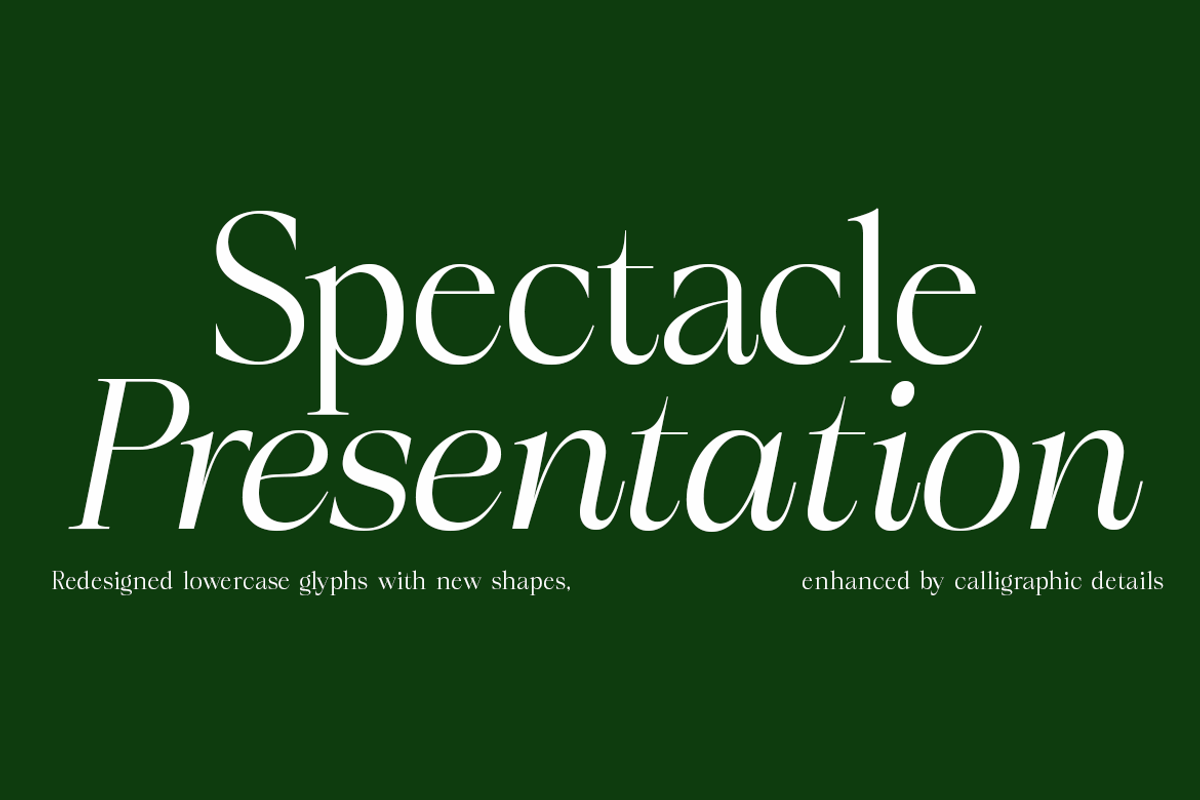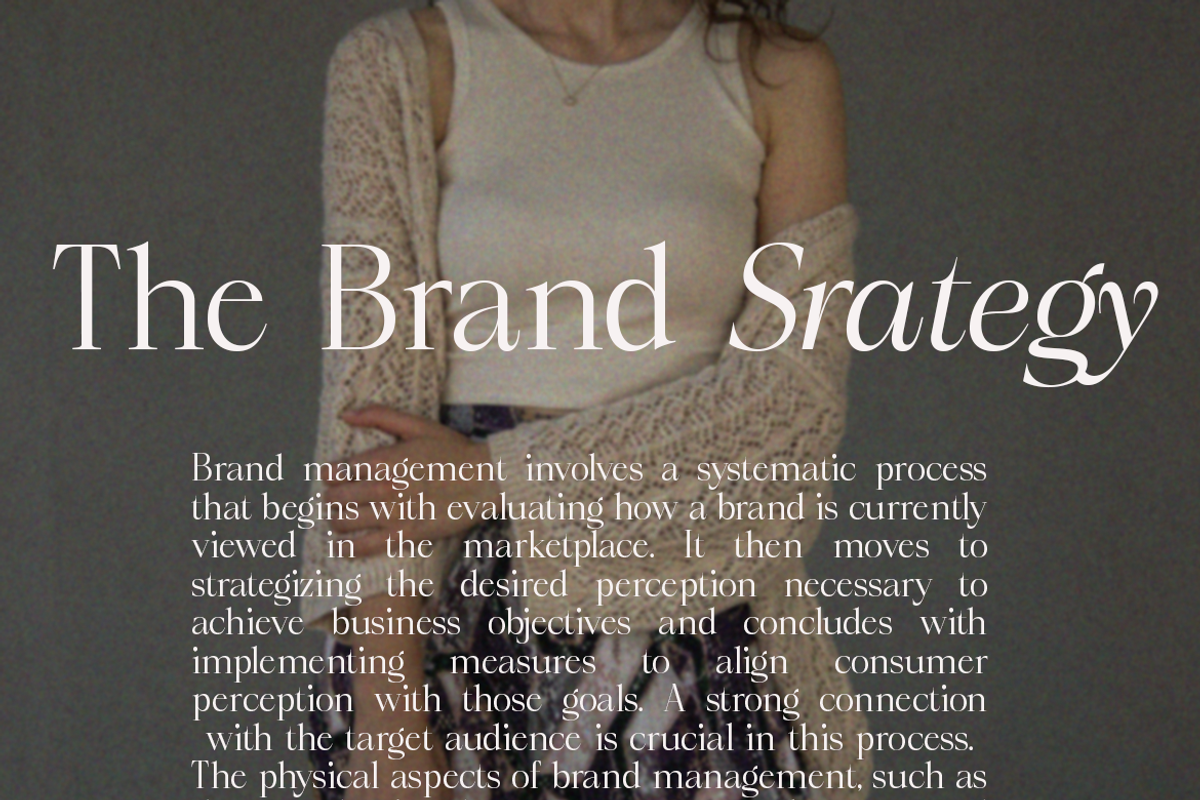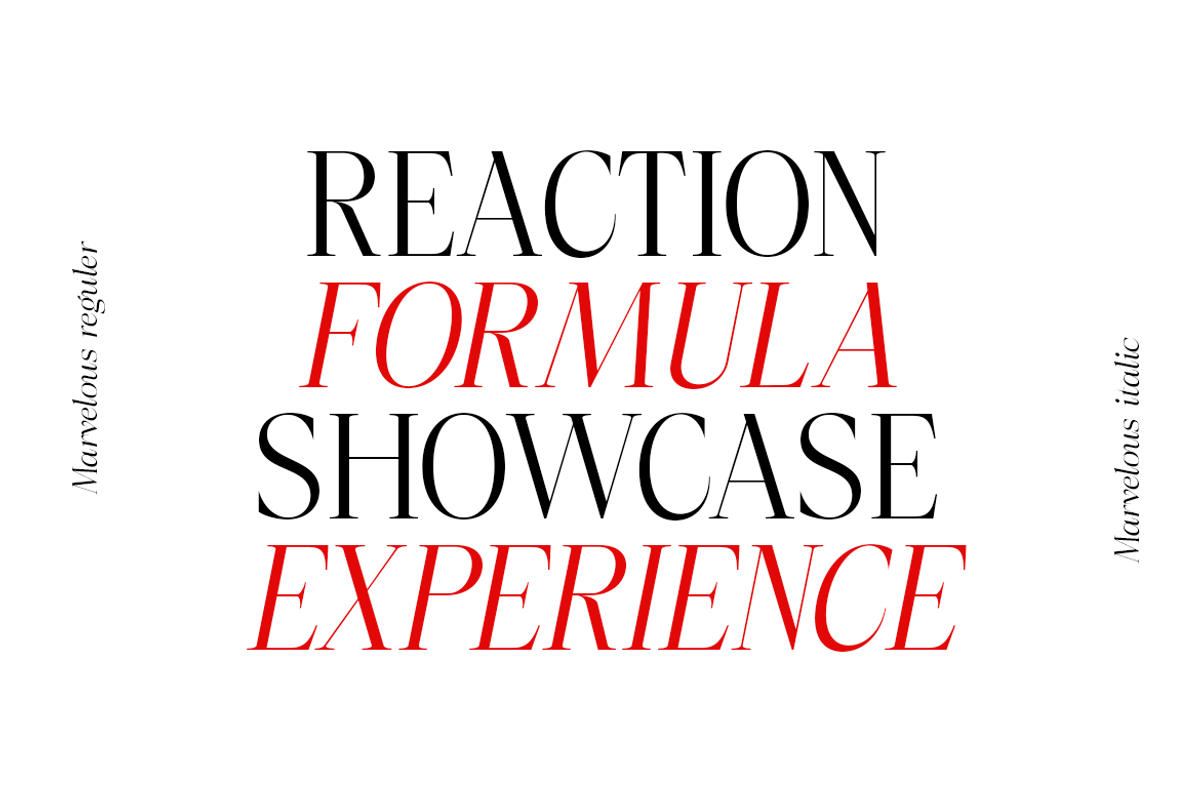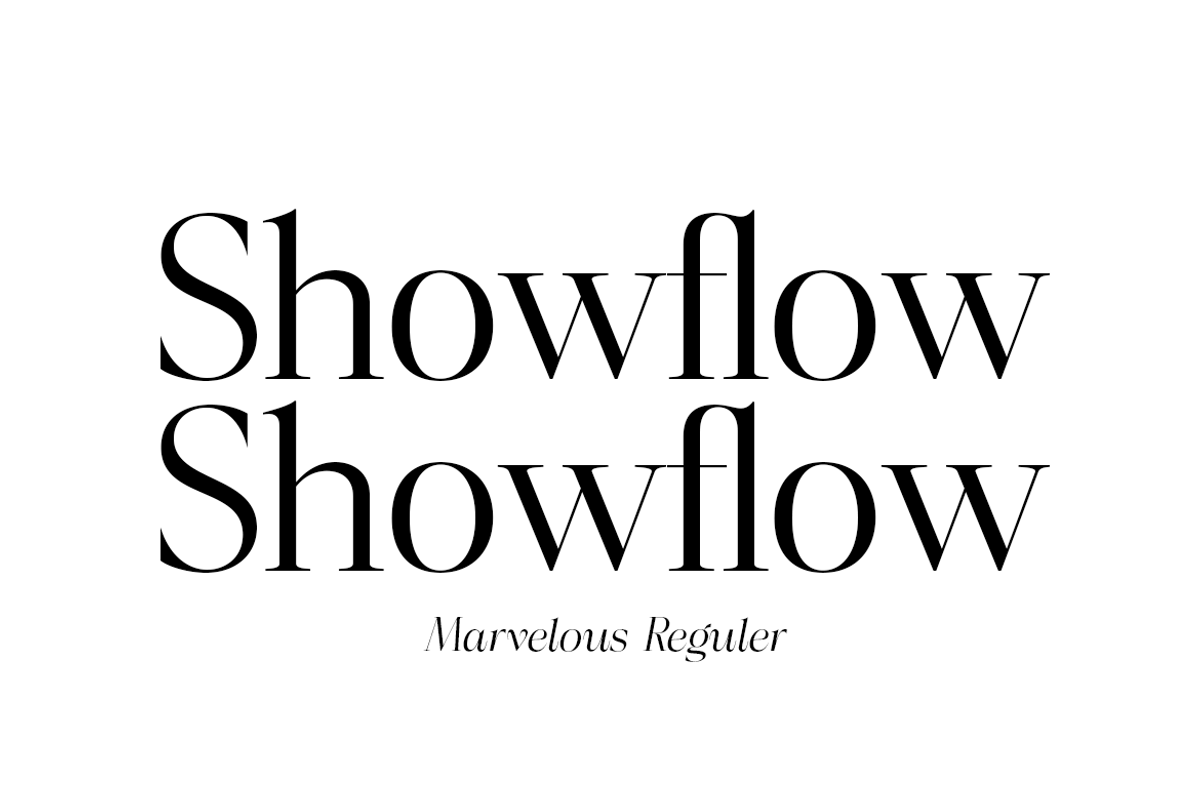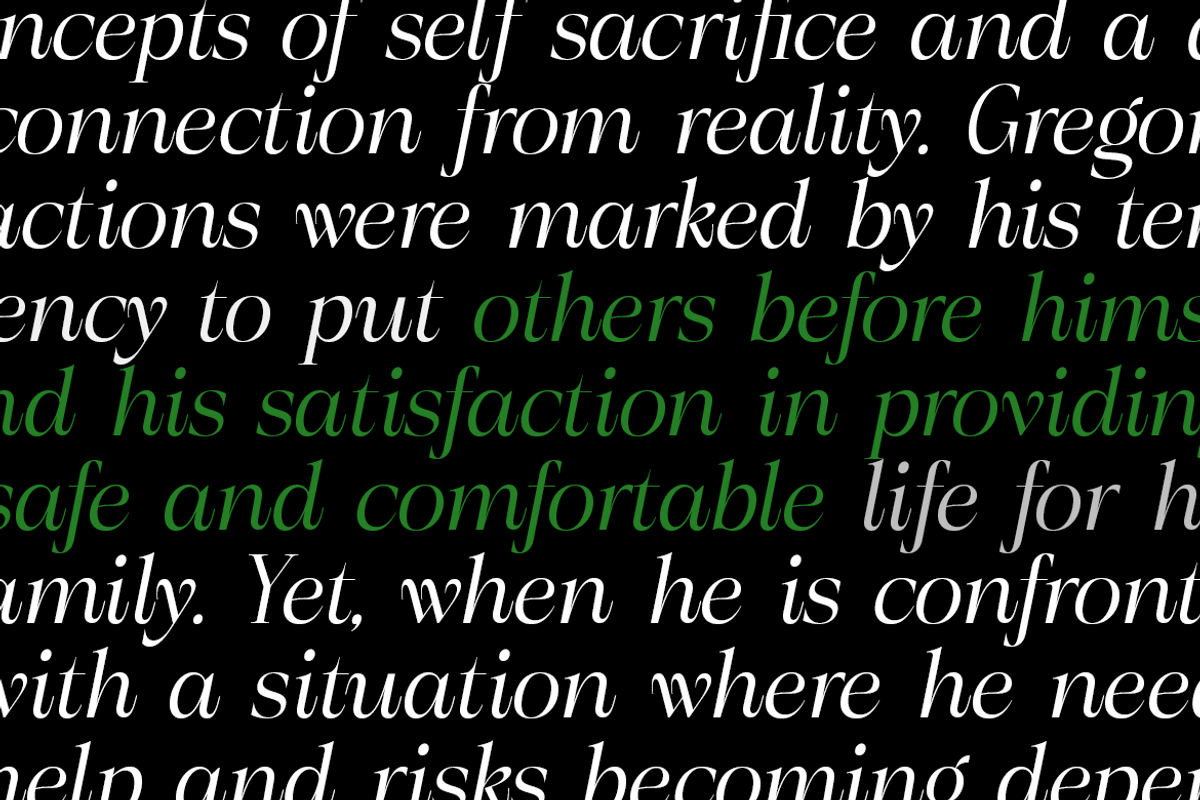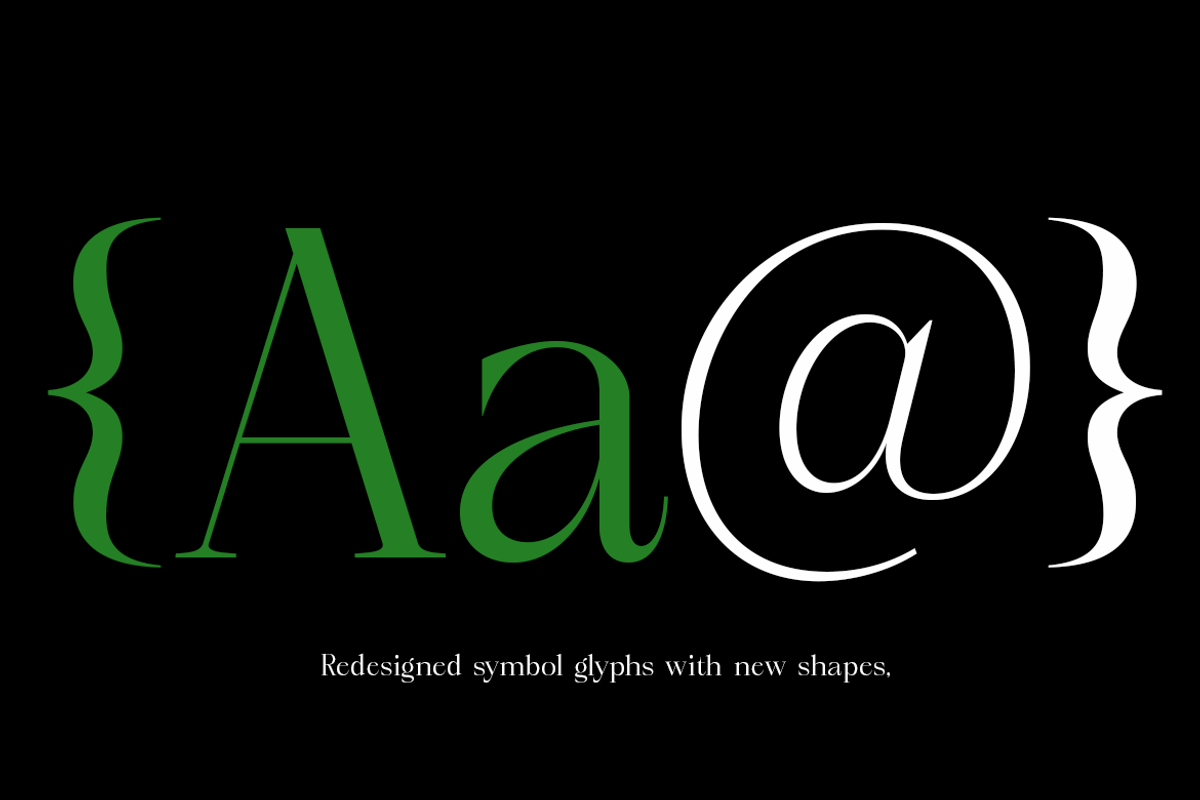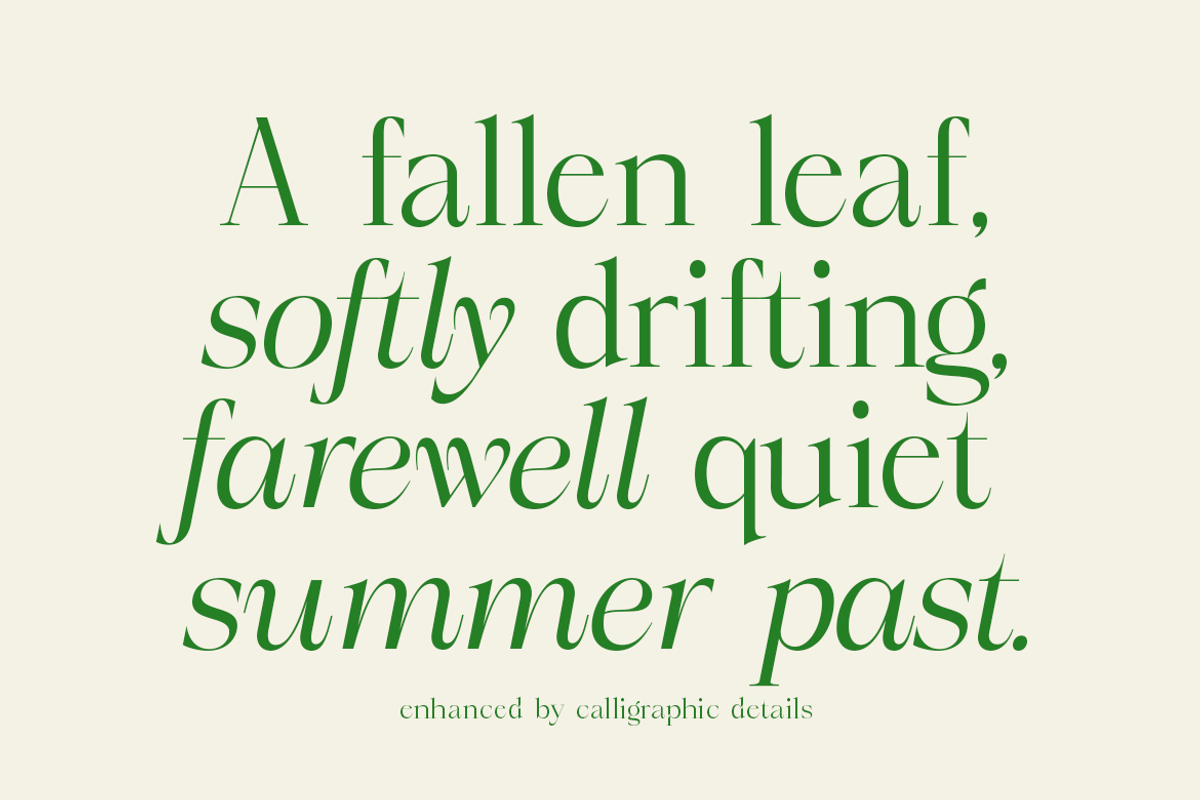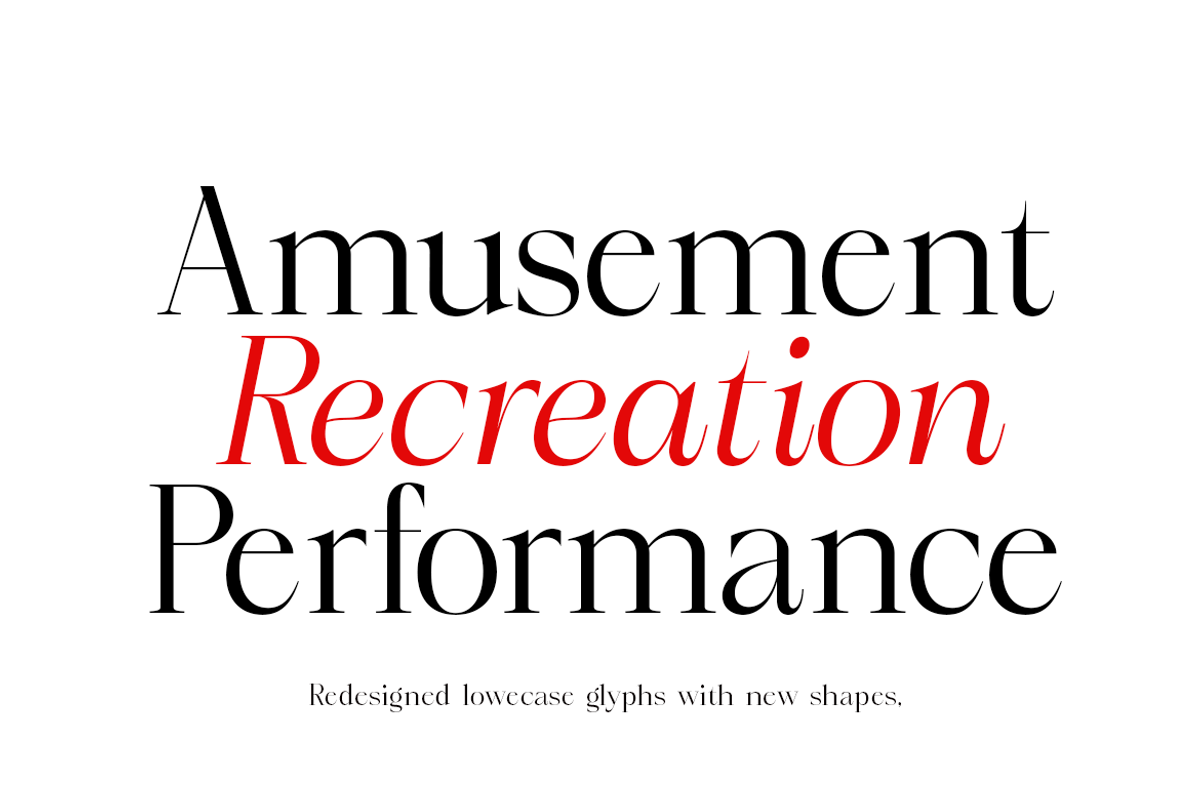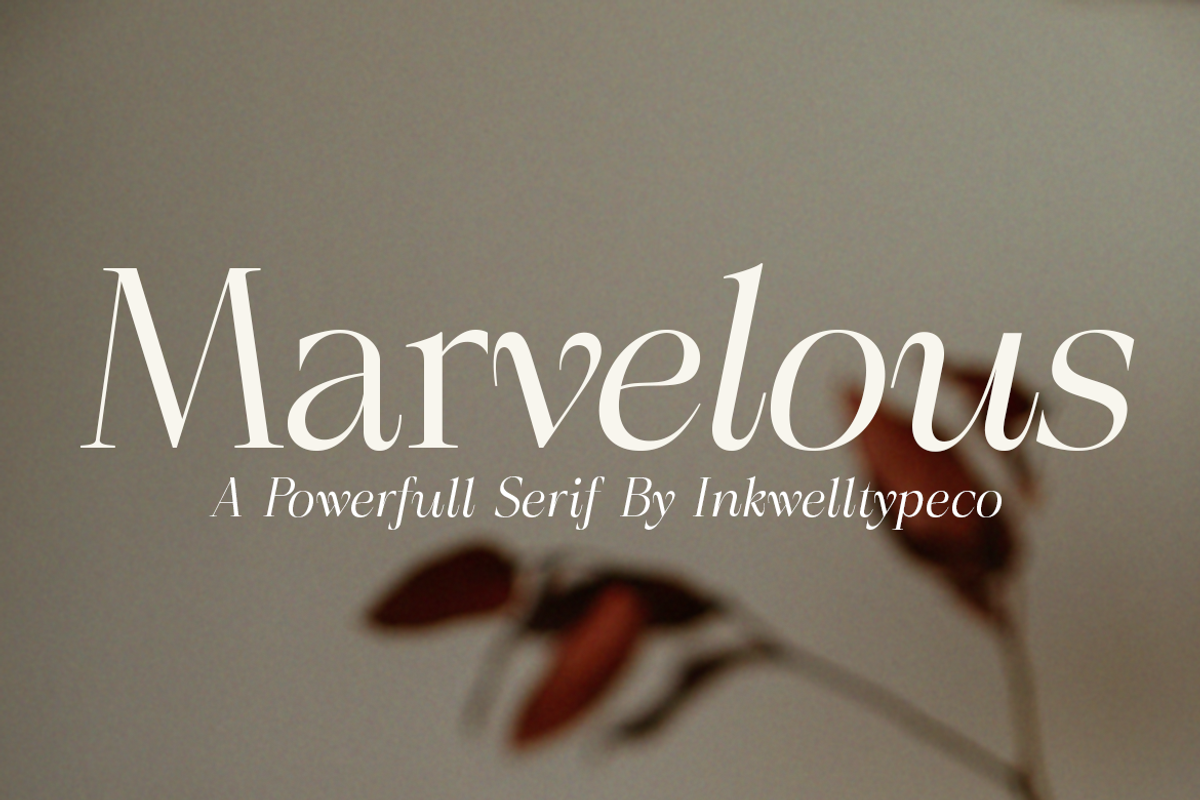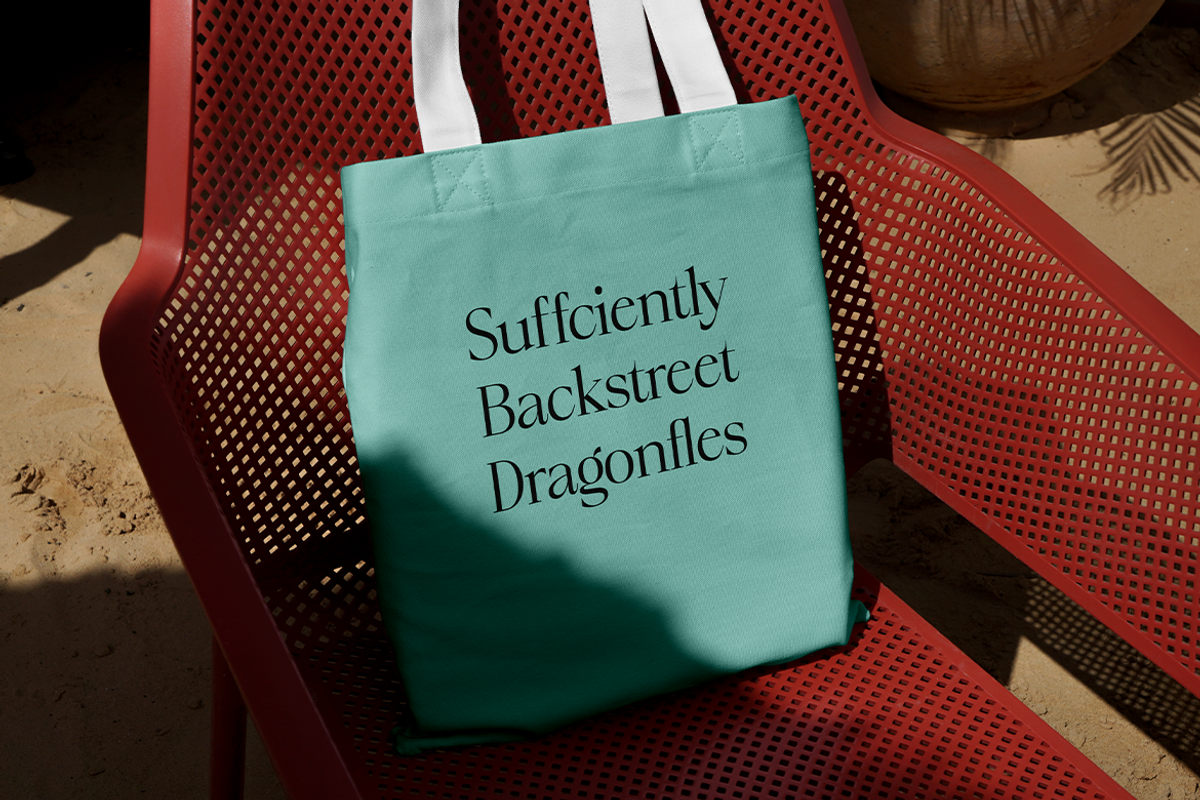
Marvelous
Marvelous is a sophisticated and elegant serif typeface designed to evoke a sense of refinement and power. With its delicate curves and bold strokes, this font is perfect for branding, editorial designs, packaging, and any creative project that requires a touch of class and versatility. Marvelous effortlessly combines modern aesthetics with timeless serif traditions, making it a standout choice for professionals seeking to elevate their design work.